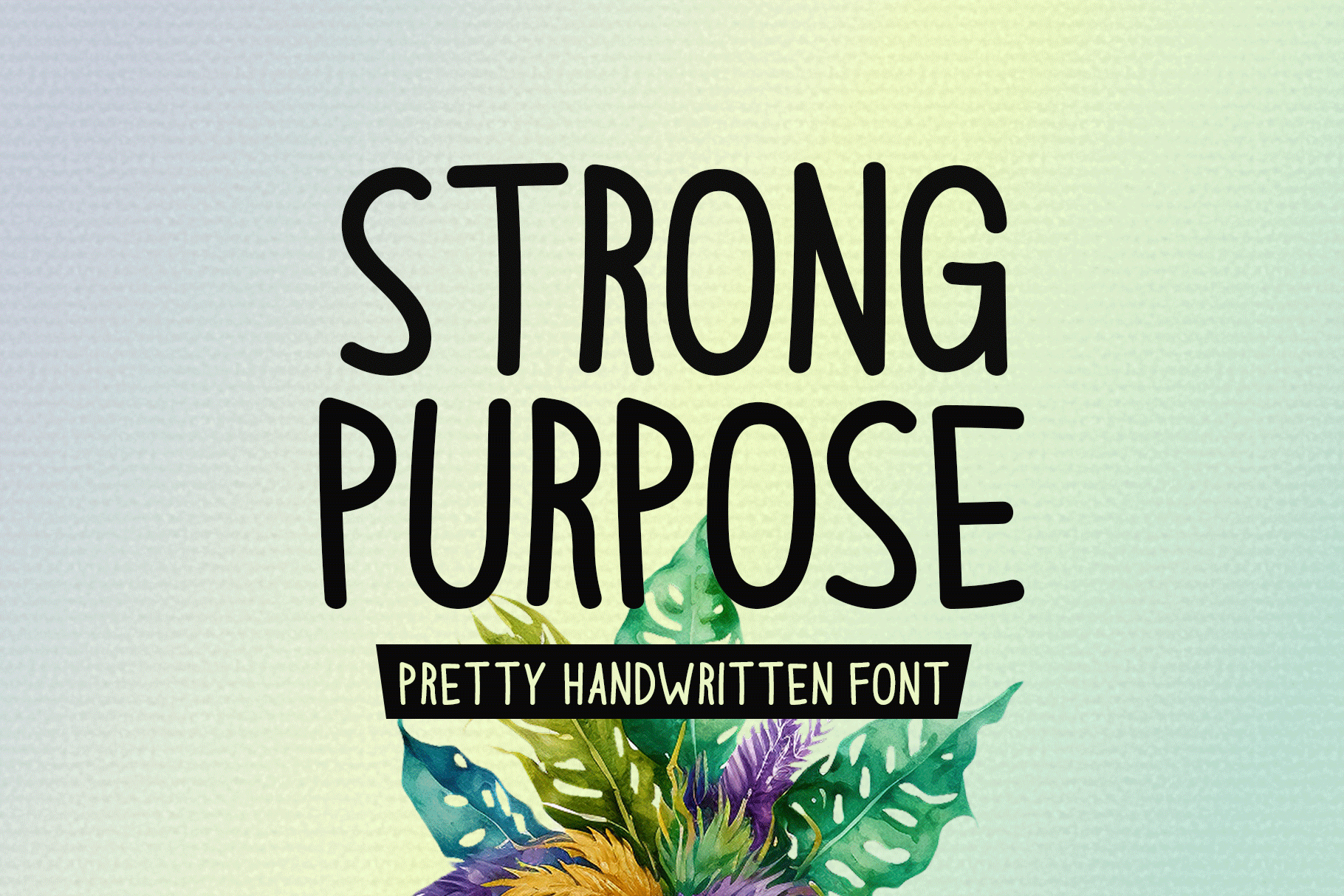
Strong Purpose Typeface
Introducing Strong Purpose!
Strong Purpose is a fresh and charming handwritten font, perfect for a wide range of uses, including stationery, logos, t-shirt designs, print materials, website headers, posters, flyers, album covers, image sliders, and more.
Includes a range of multilingual support